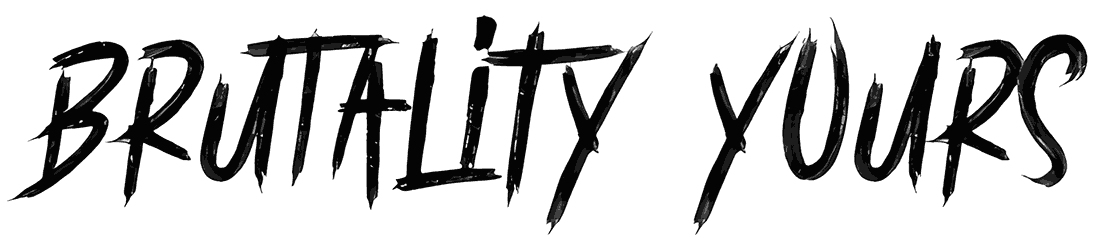
Brutality Yours Font
Do you need a more savage vibe to convey from your words? Maybe Brutality Yours be the answer as a horror font with its harsh face. No lowercase and punctuation, but Brutality Yours consists of two series of uppercase letters and is an exciting option to display flyers, movie ads, graphics, and along with others.